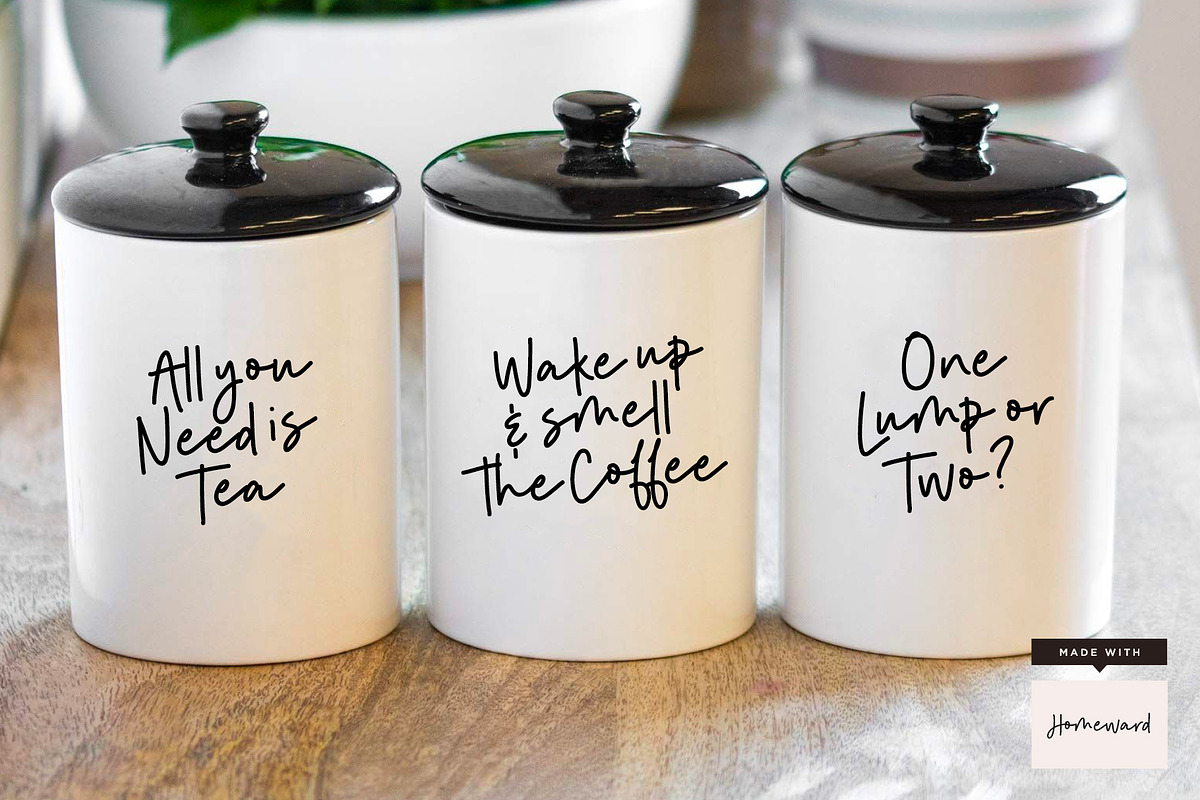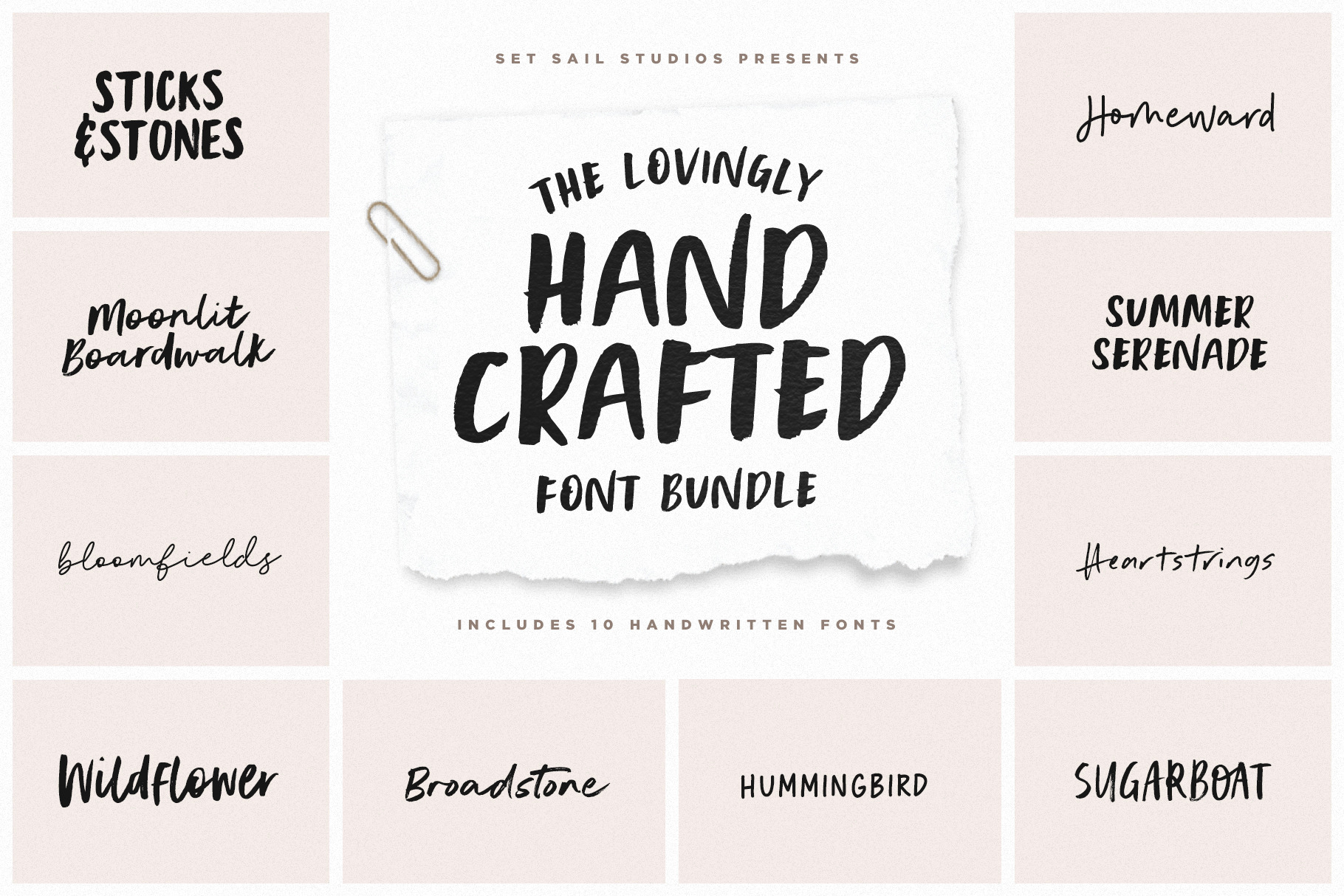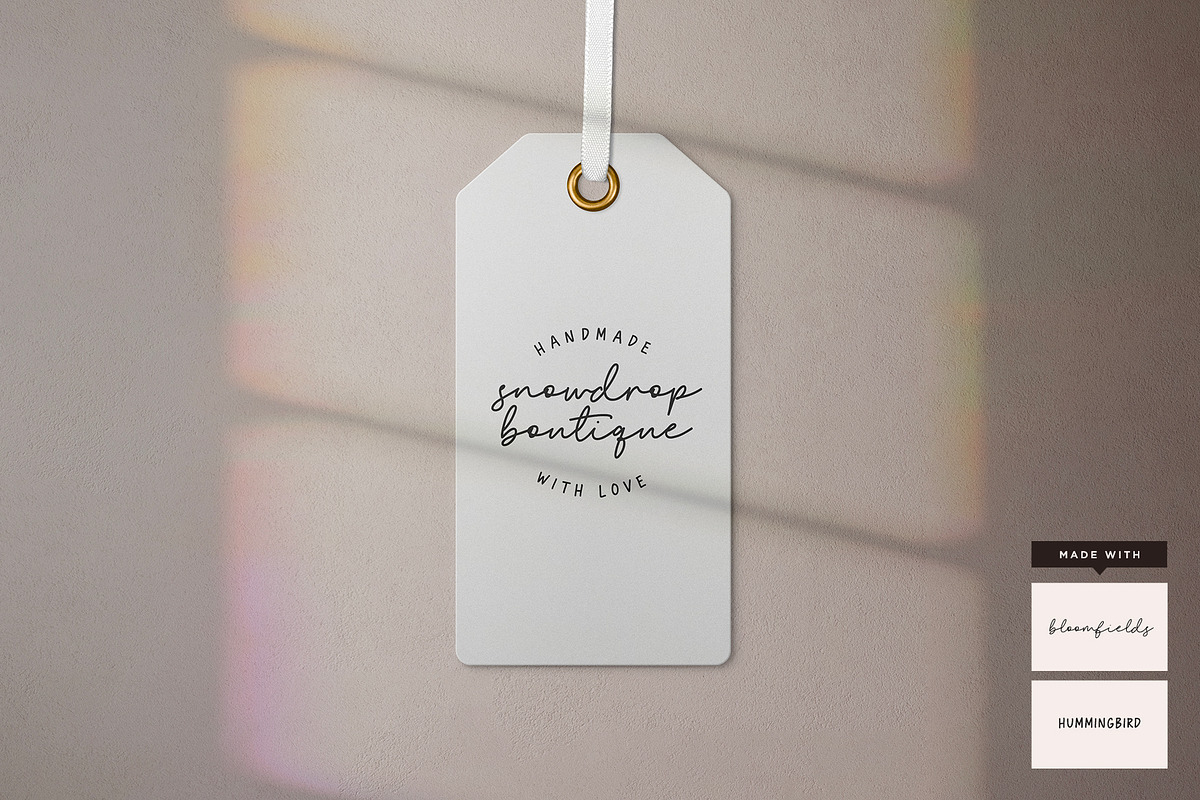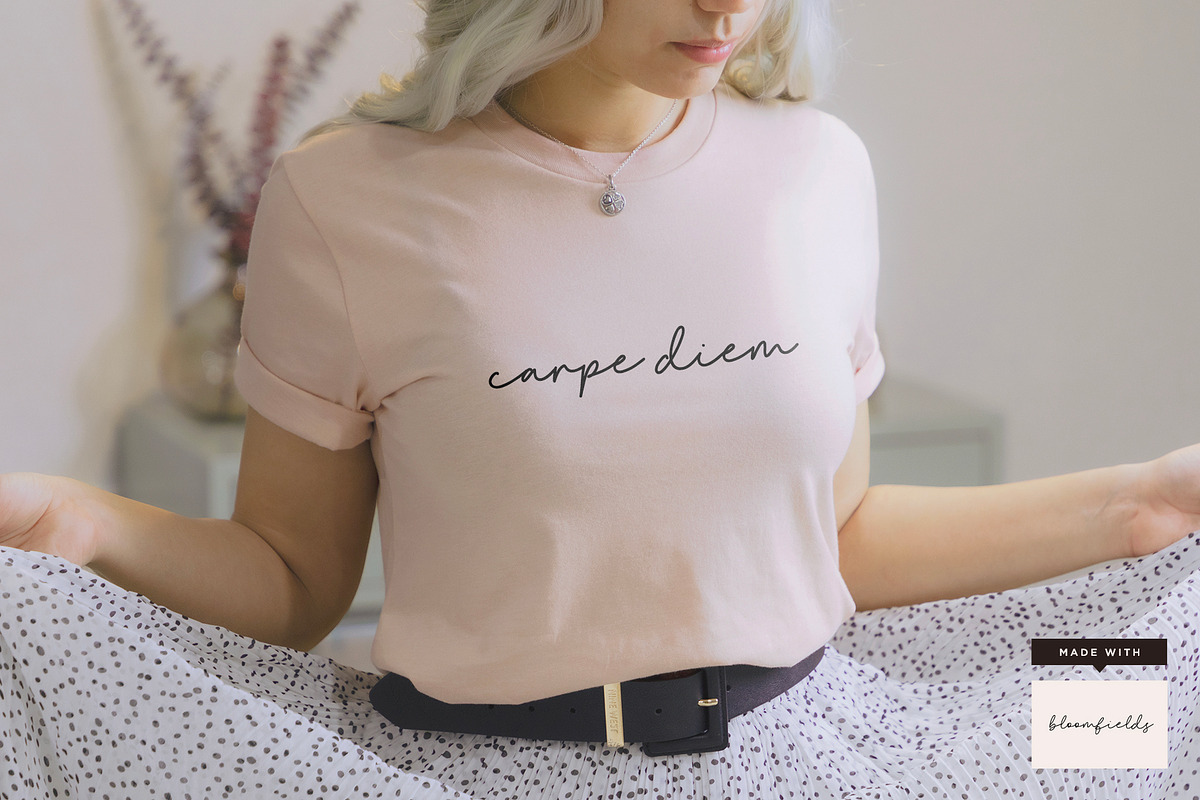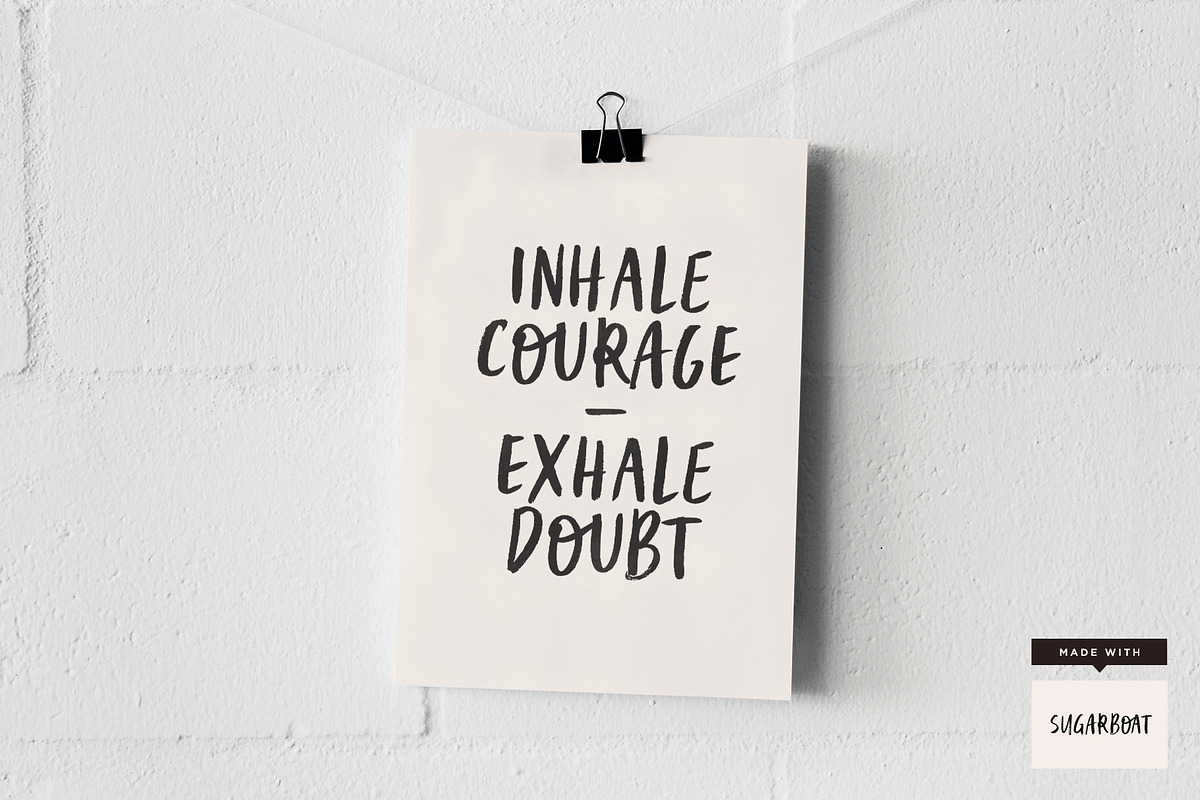
The Hand Crafted Font Pack
Introducing the Lovingly Hand Crafted Font Pack! A set of ten handwritten fonts for the price of one, designed specifically to mix & match with each other, and only available exclusively in this set. Add a personal touch to your product designs, logos, social media posts, handwritten quotes and more, and explore a vast selection of lettering options & pairings.
THE FONTS;
- Sticks & Stones • A hand-painted, all-caps brush font with a big impact. Contains a full set of alternates (switch between upper & lowercase glyphs).
- Broadstone • A stylish handwritten font with a dry inky texture. Works great in all-caps as well as lowercase.
- Sugarboat • A quirky all-caps font with extra charm. Contains a full set of alternates (switch between upper & lowercase glyphs).
- Summer Serenade • A playful, bold all-caps font. Pairs great with Moonlit Boardwalk.
- ✨Homeward • A bouncy & fun handwritten monoline font. Pairs great with Hummingbird.
- ✨Hummingbird • An all-caps monoline font for easy to read smallcaps. Pairs great with Homeward.
- Heartstrings • A messier, carefree handwritten font. (Type ^ for a cute heart doodle!).
- Heartstrings Alt • A full set of upper & lowercase alternates for the Heartstrings font.
- ✨Bloomfields • A classy, cursive monoline font with bags of style.
- Moonlit Boardwalk • A bold & modern calligraphy font with an eye-catching charm. Pairs great with Summer Serenade.
- Wildflower • A bouncy hand-painted script with lots of energy.
✨ These fonts are totally clean & smooth - perfect for cutting machines!